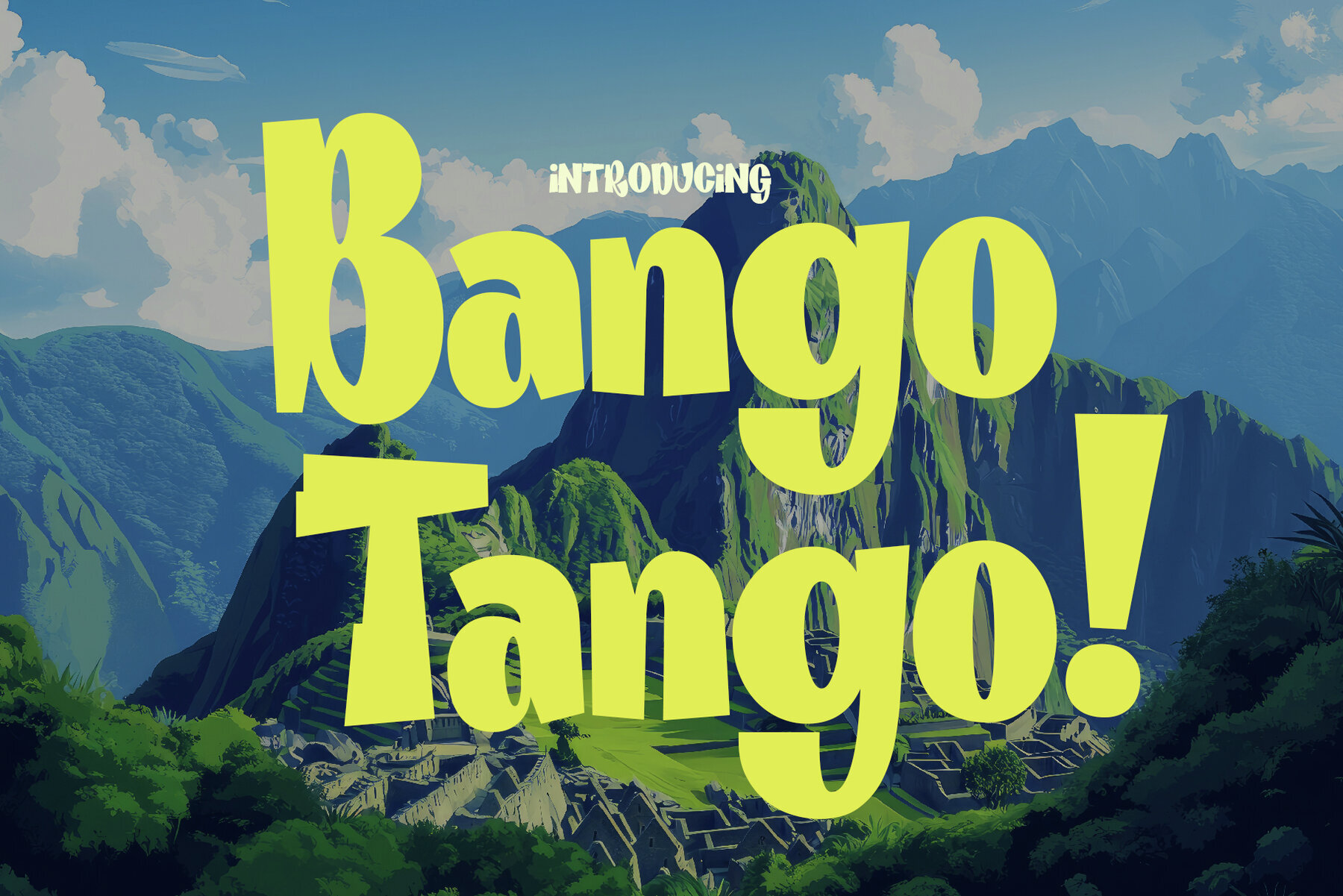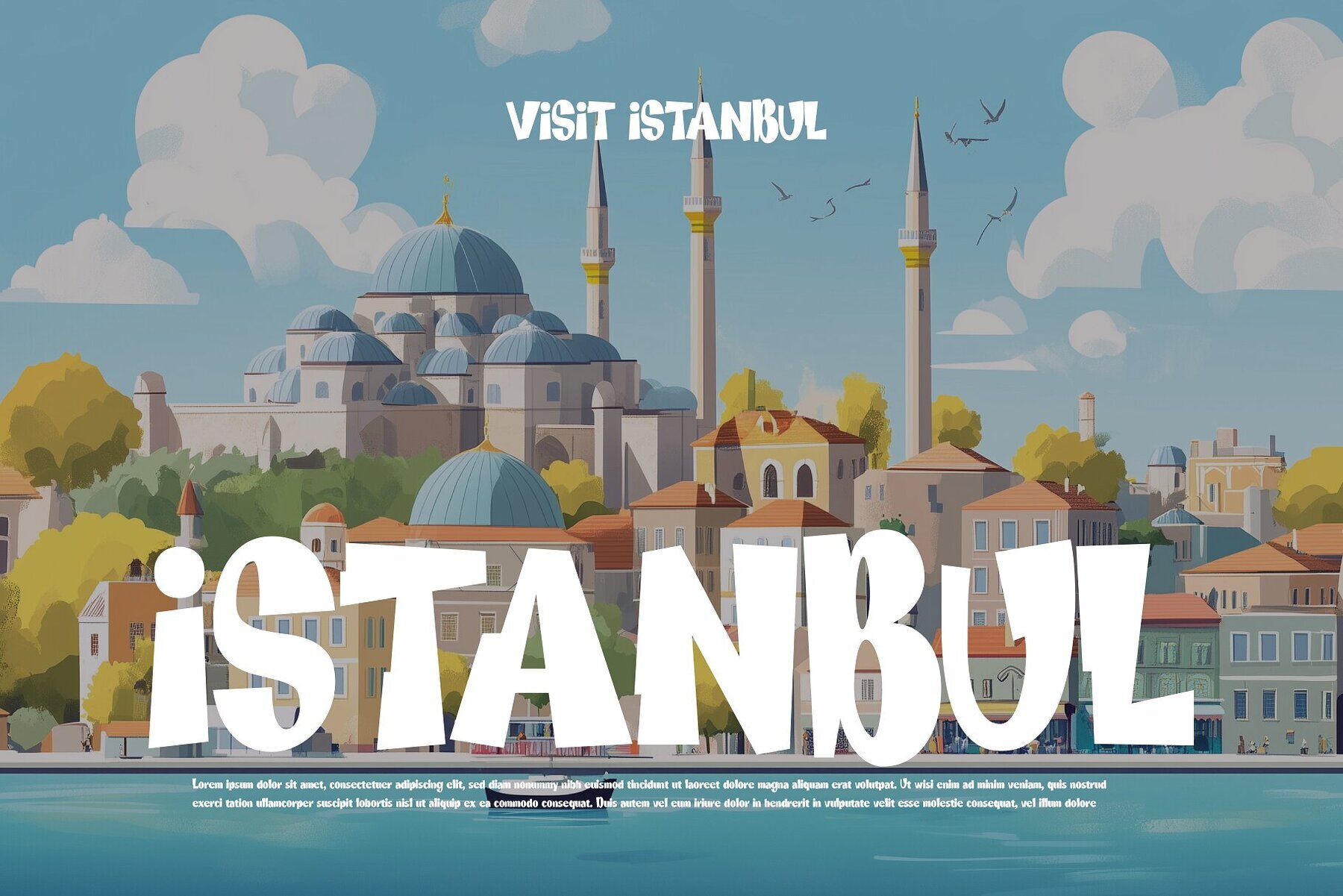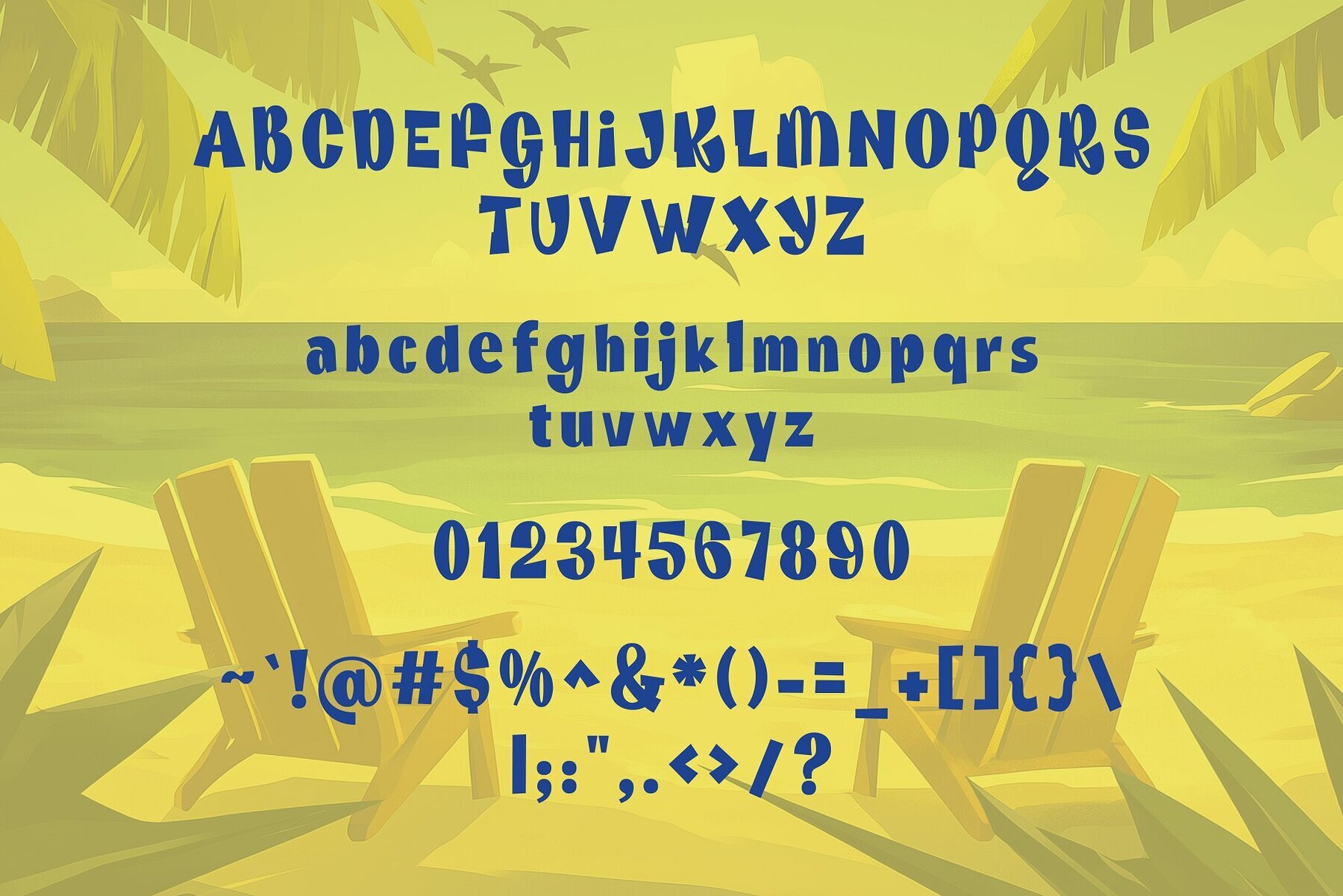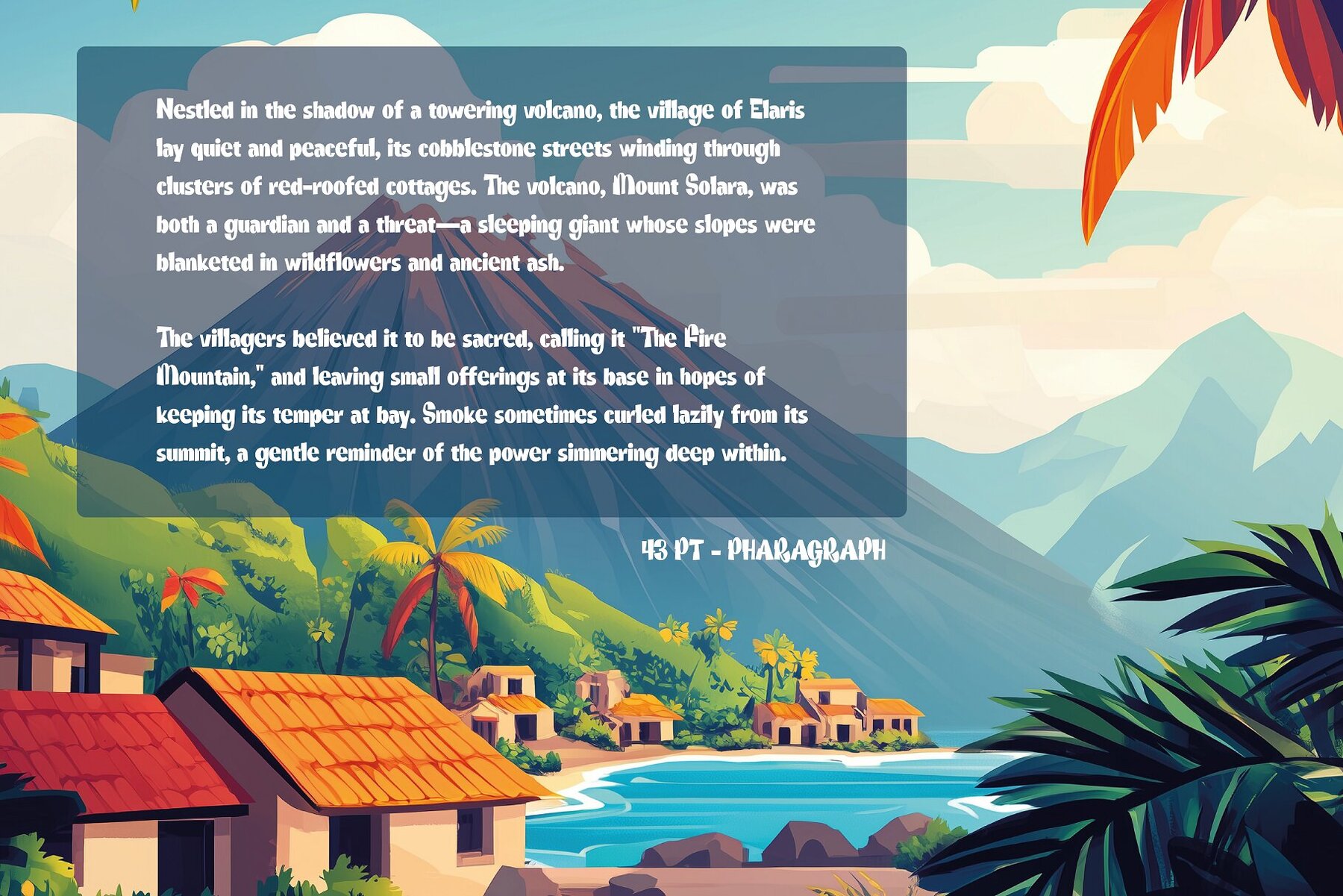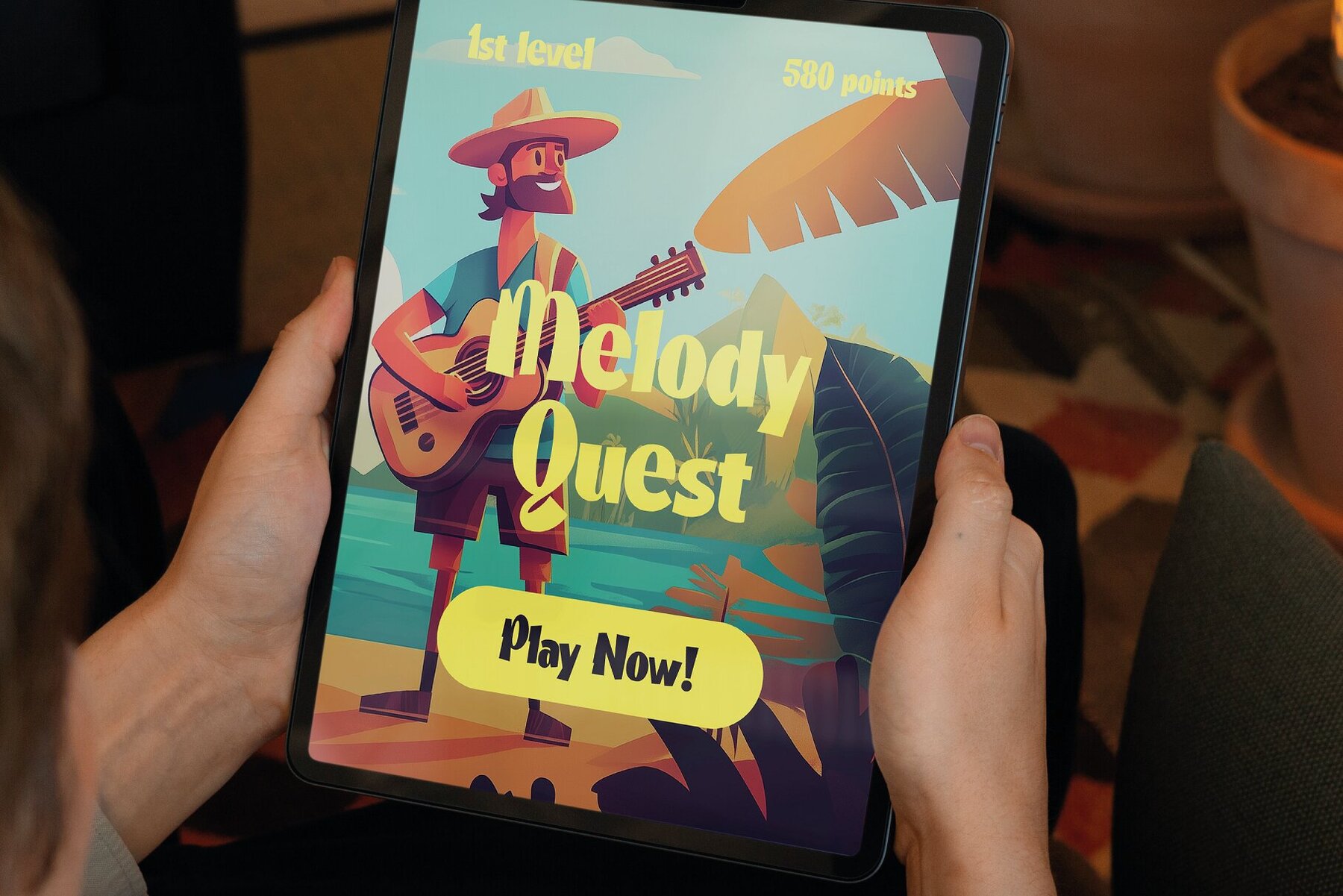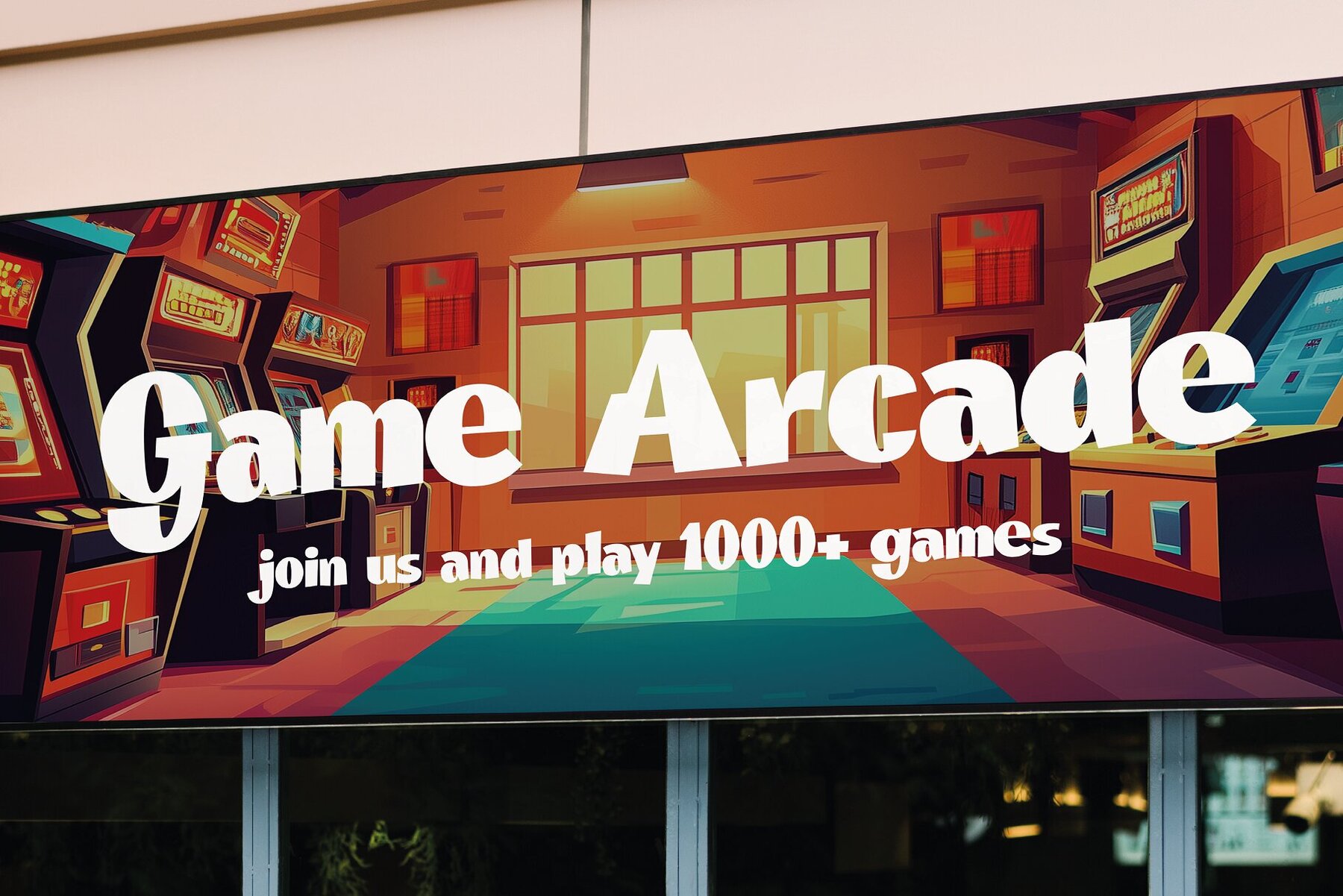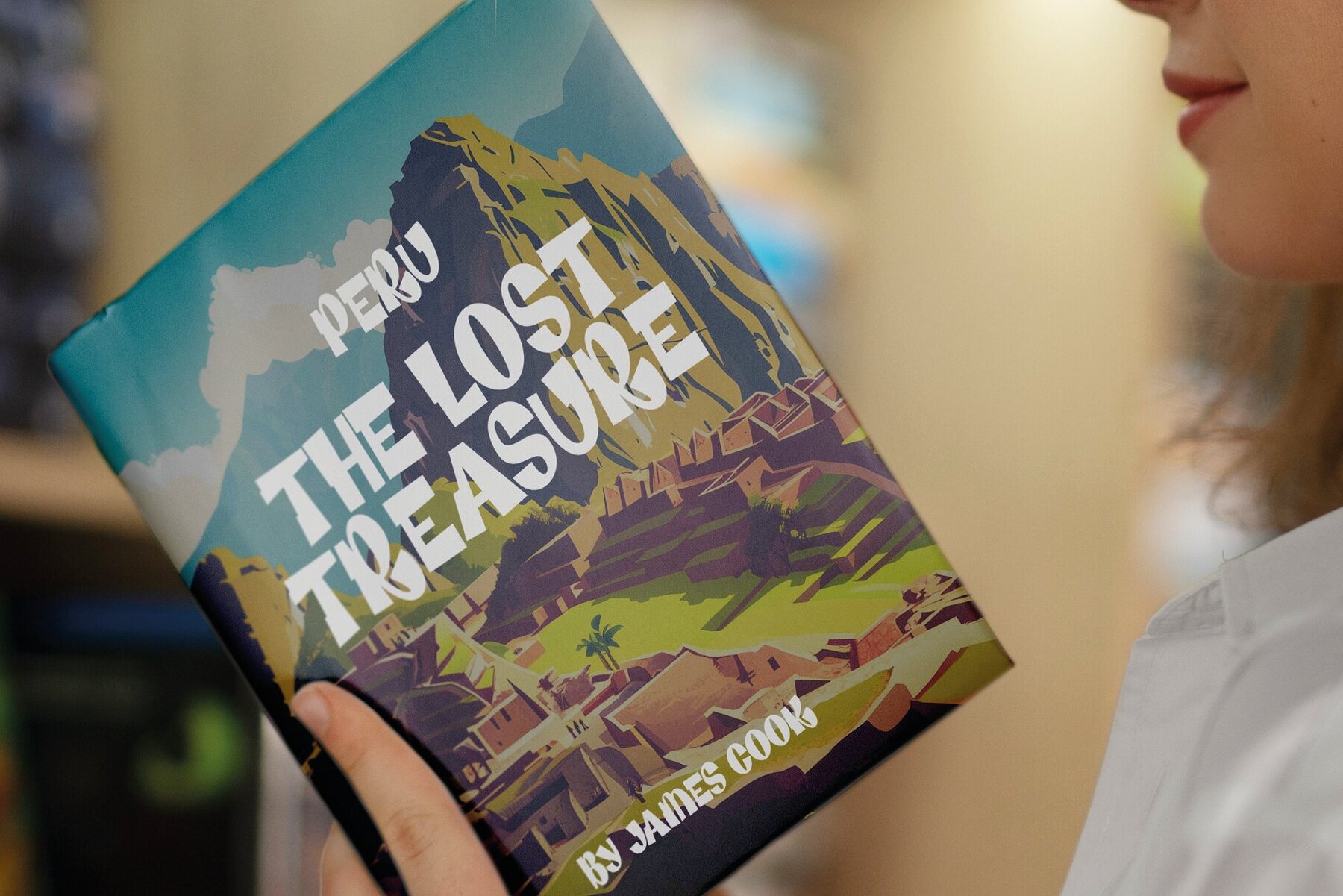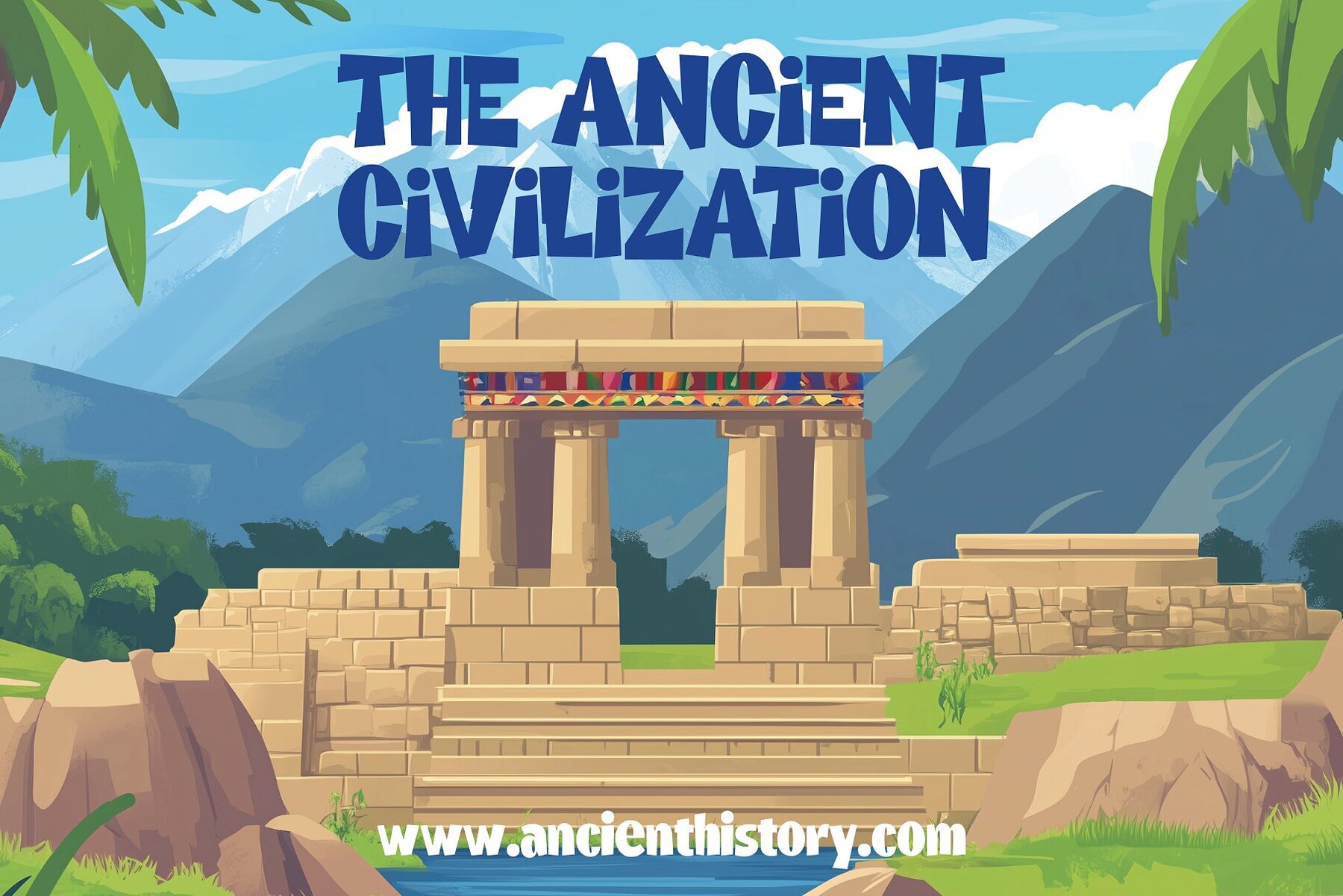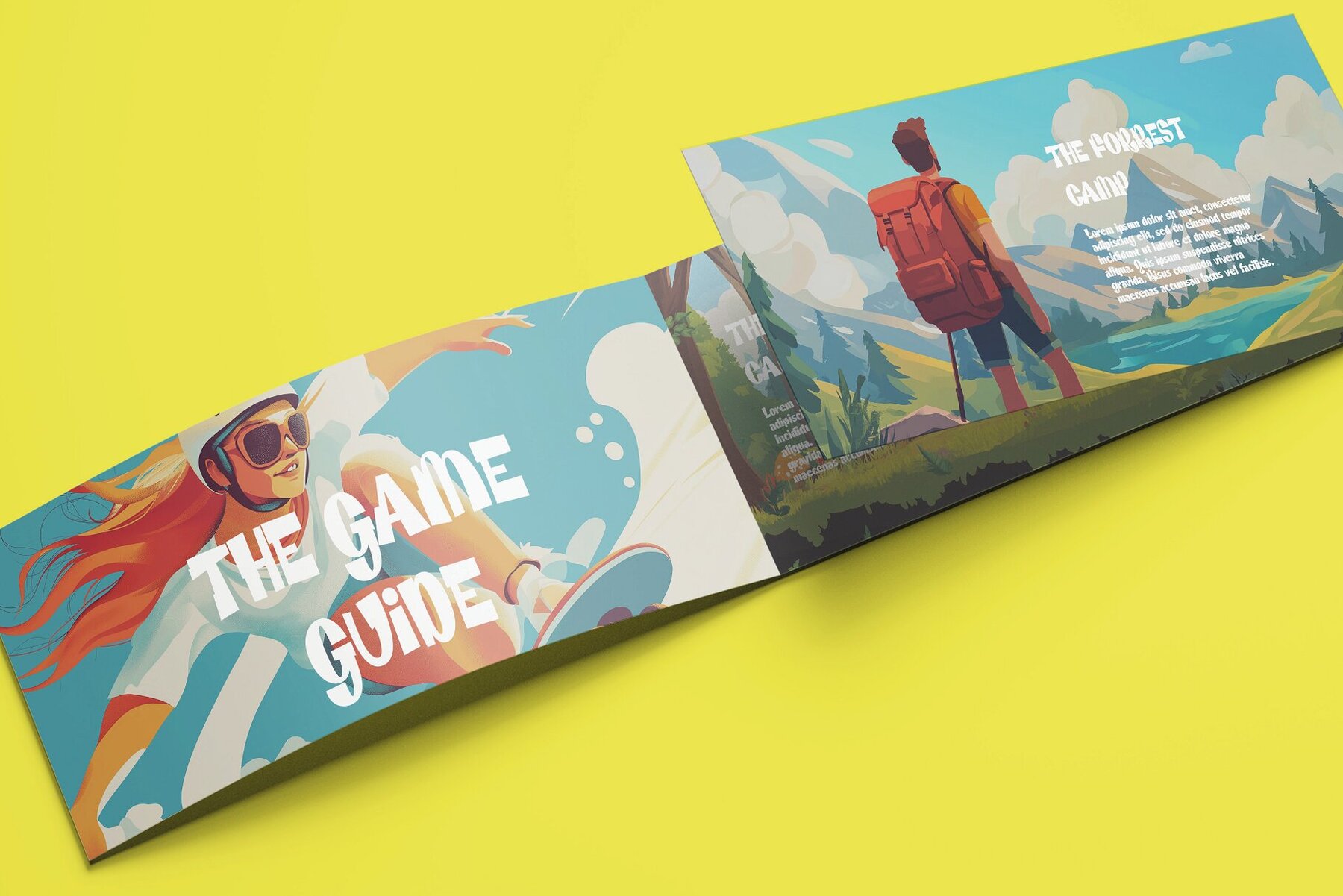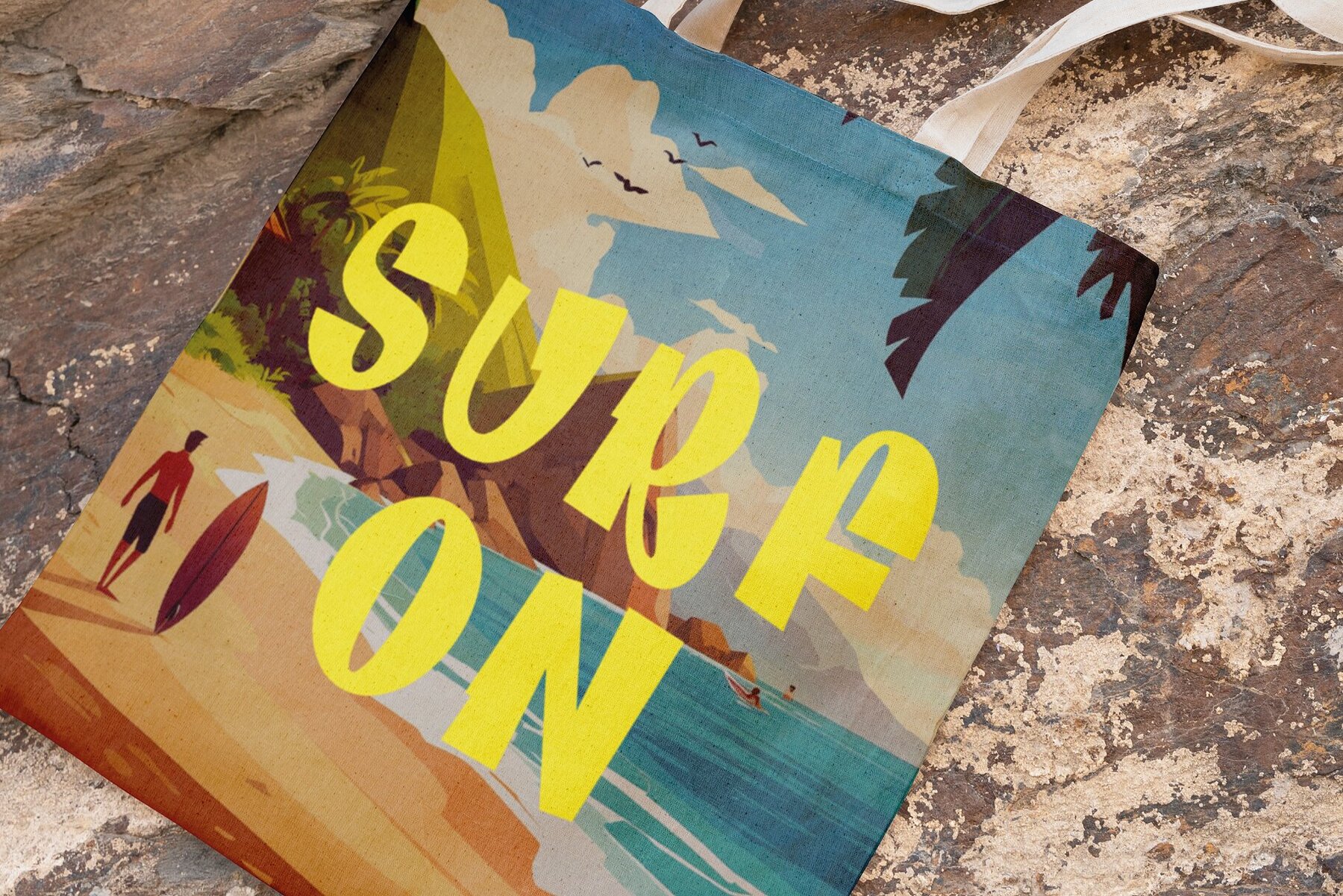
Bango Tango Font
Bango Tango Regular
Breathe life into your creations with Bango Tango, a playful sans-serif typeface overflowing with personality and charm. This font's smooth curves and cheerful vibe are designed to infuse your projects with positivity and vitality. Whether you're crafting for children, planning events, or any project seeking an extra dose of joy, Bango Tango delivers a delightful flair. Experience the versatility and lively style that Bango Tango offers. Perfect for projects that aim to spread smiles and good vibes, this typeface is your go-to choice for bringing fun to your designs!Bango Tango: A Lively Typeface for Joyful Designs